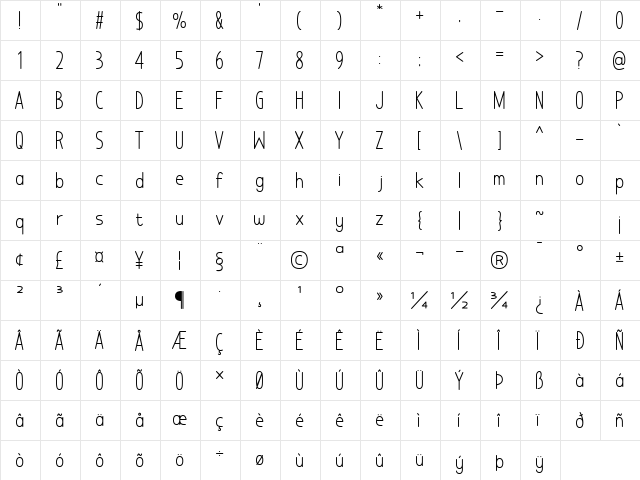
No Added Sugar Regular
Design Context for No Added Sugar Typeface
No Added Sugar takes a measured approach to typography — its balanced proportions and neutral character make it a reliable workhorse for both digital and print work.